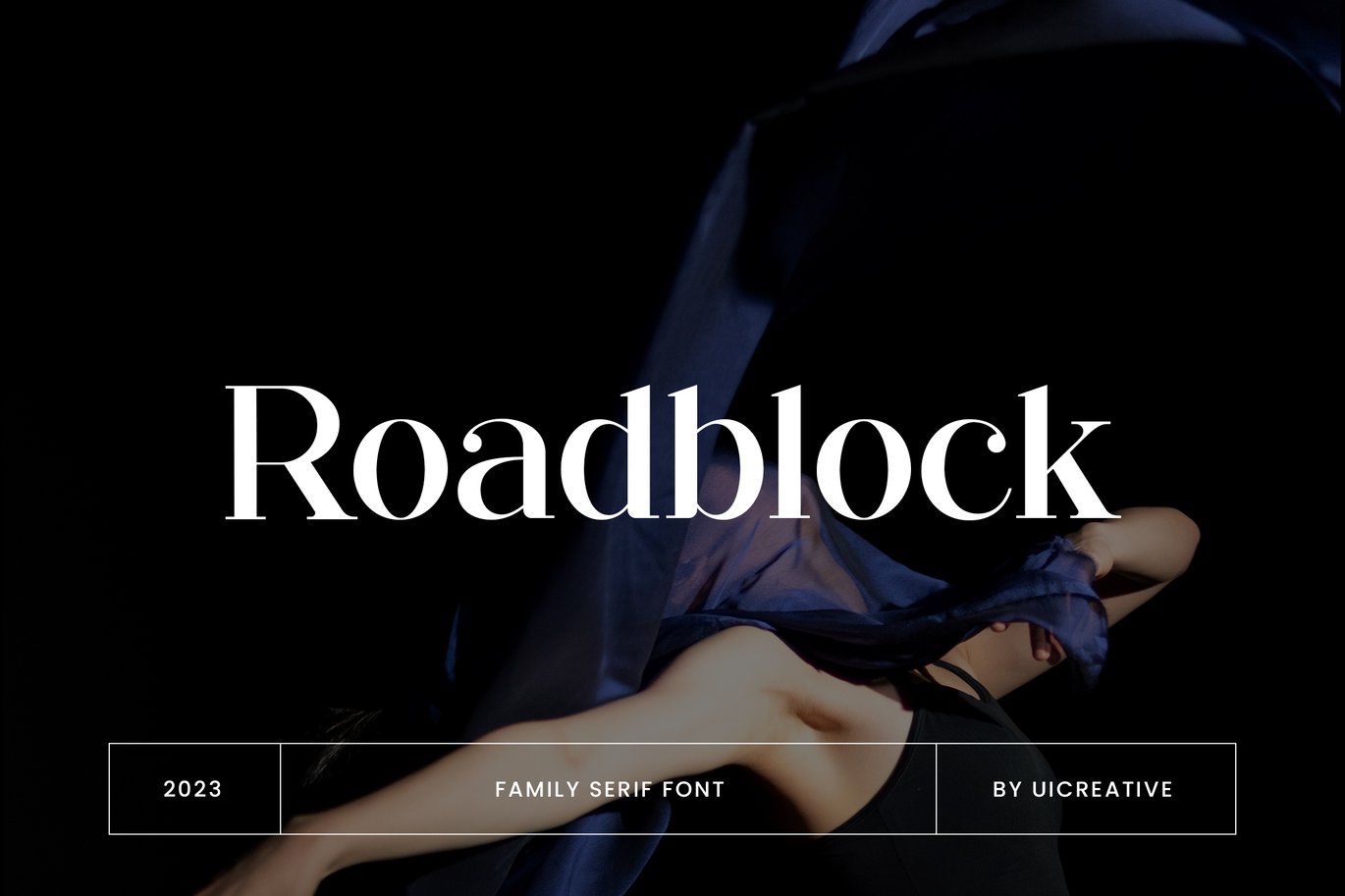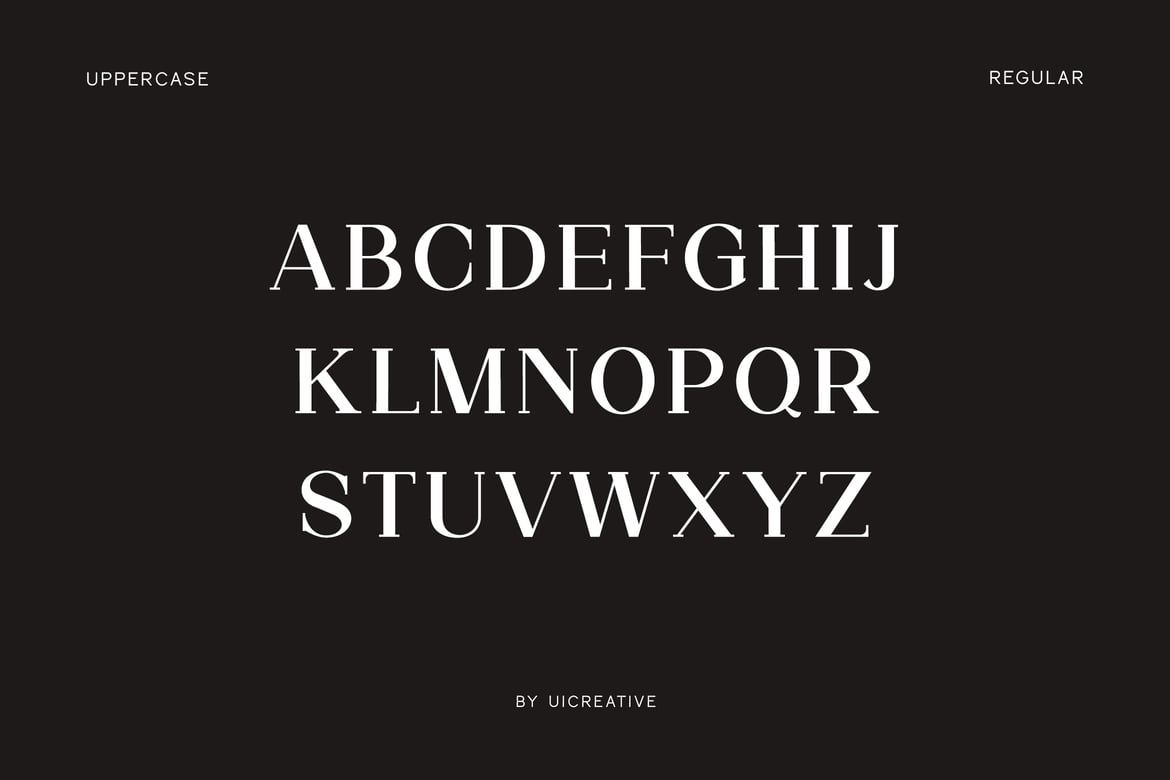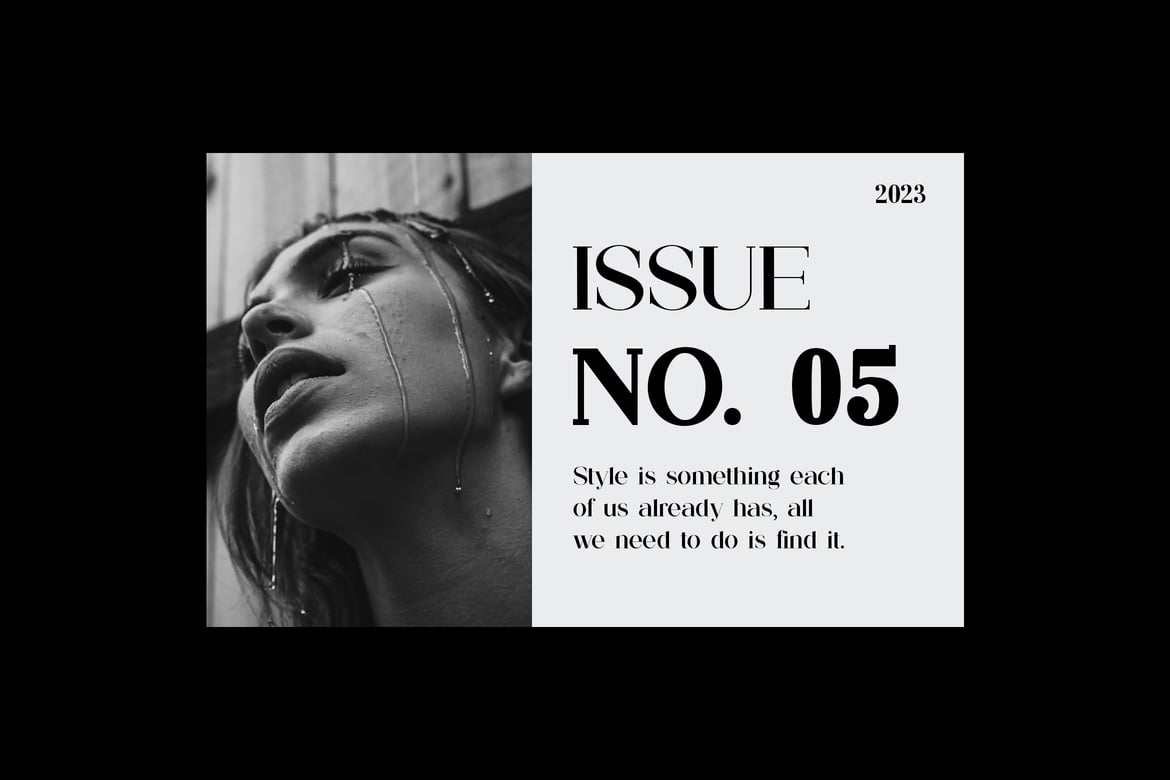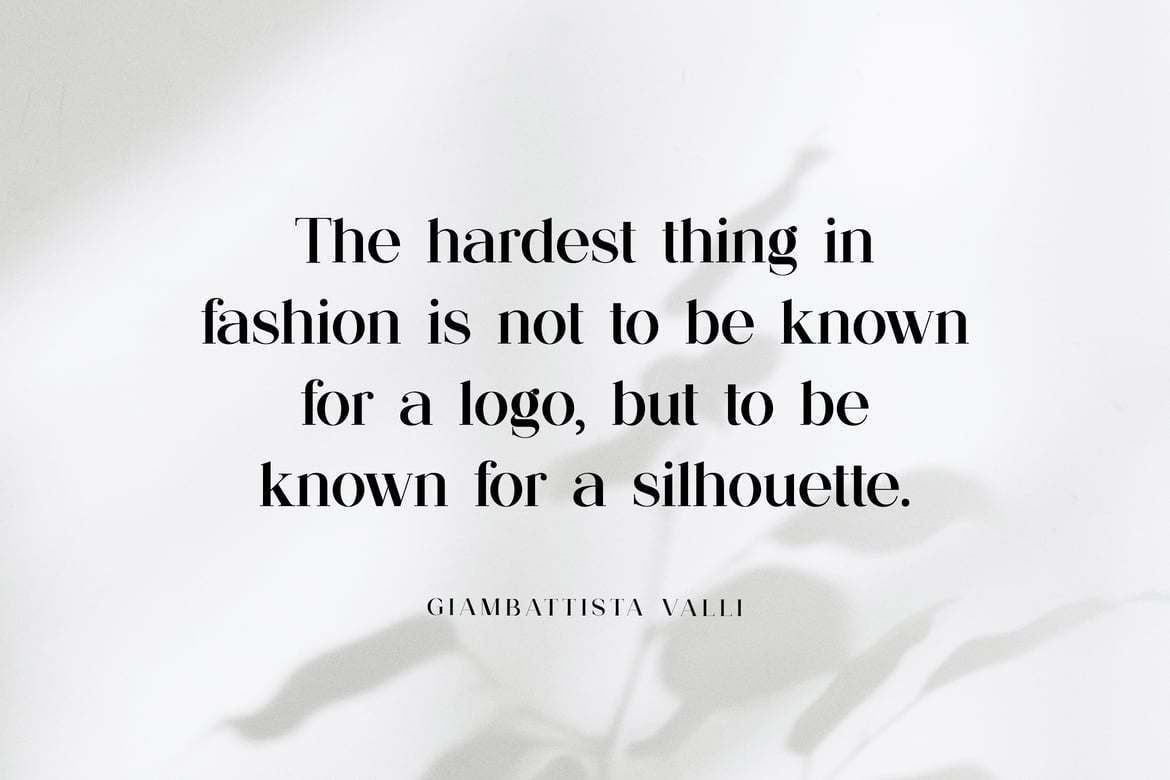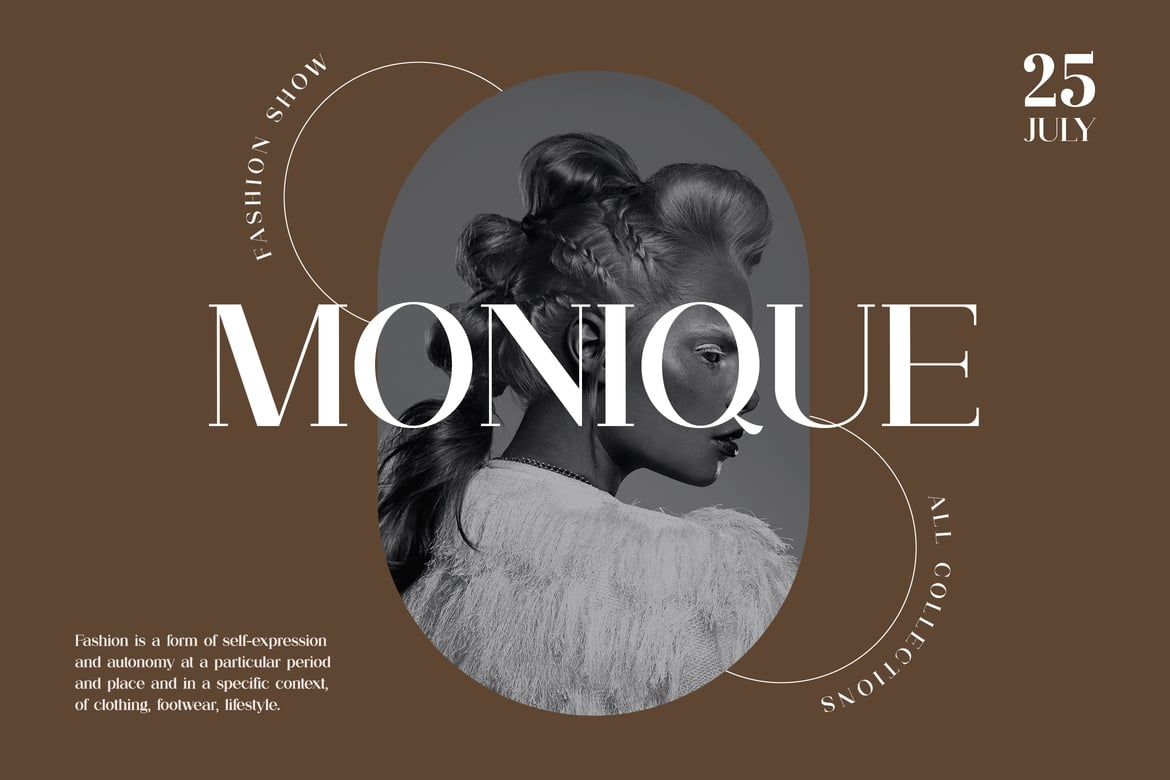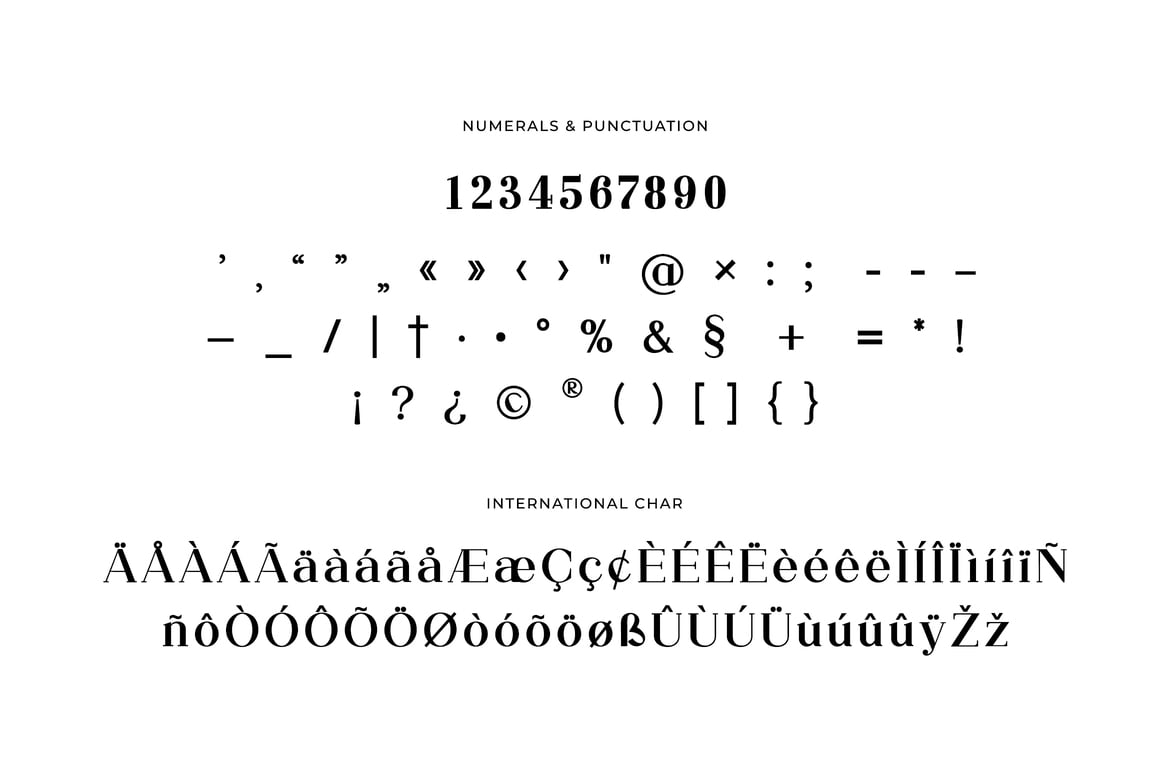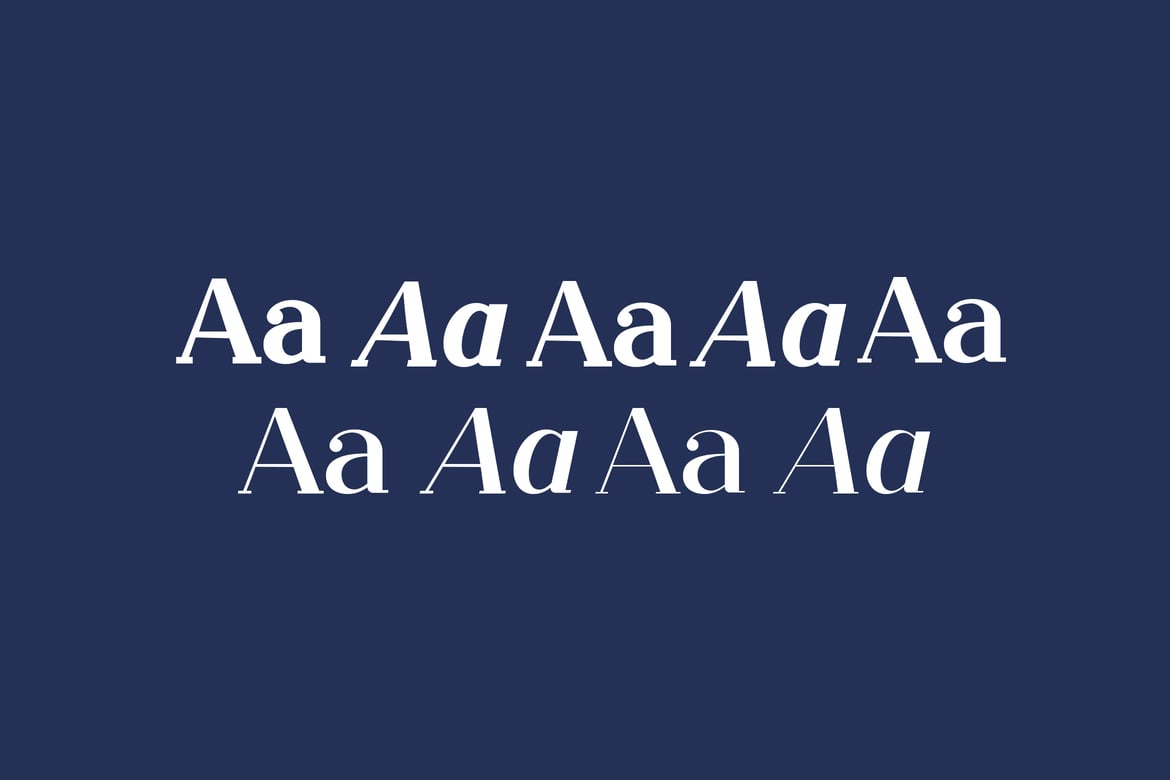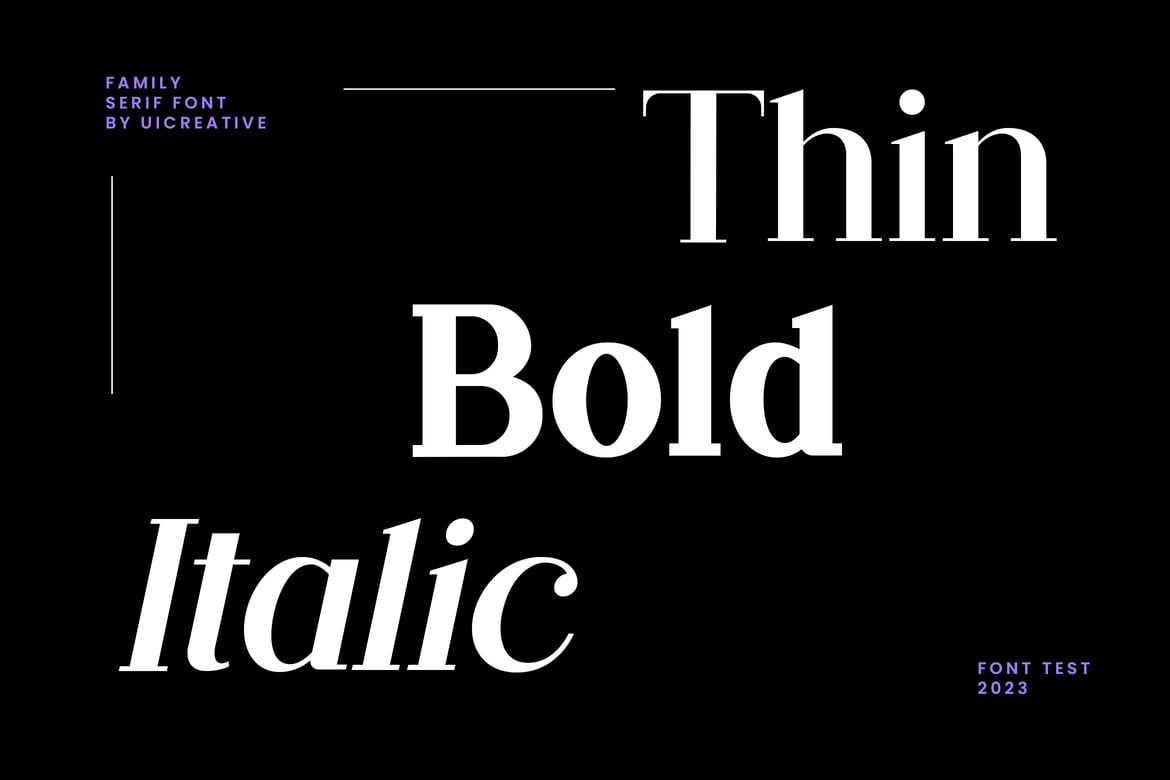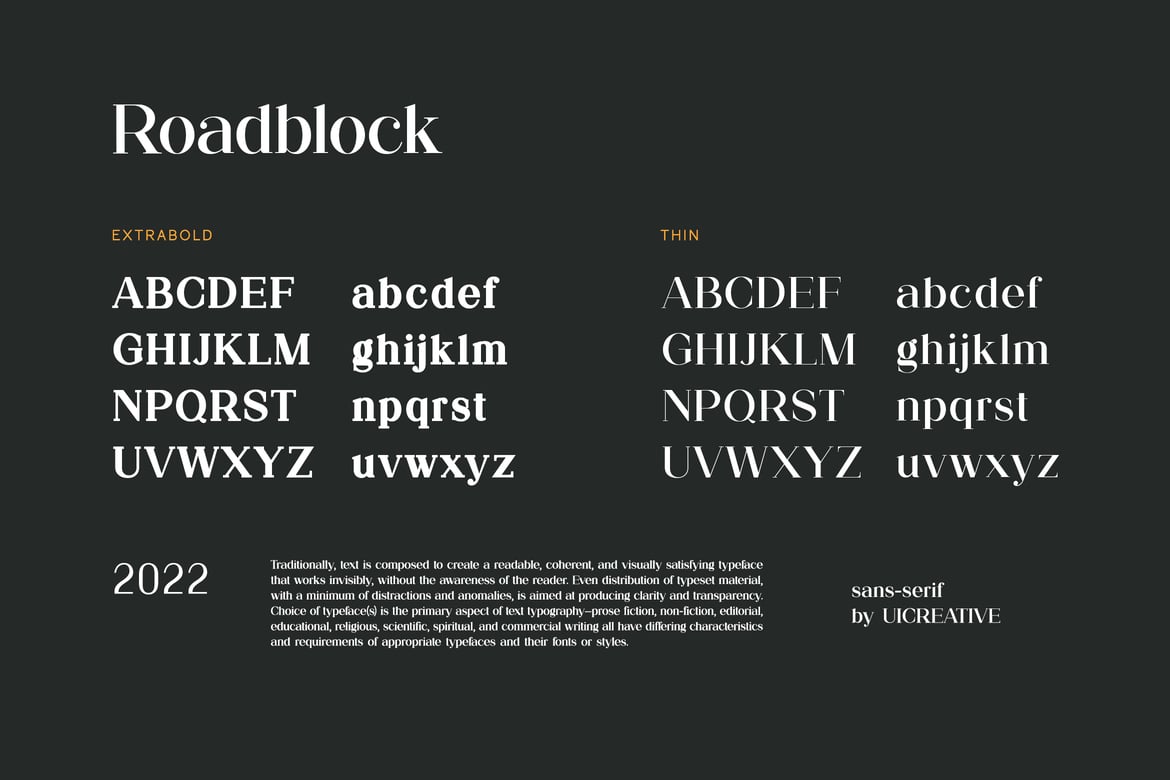
Roadblock Family Serif Font
Introducing our new product the name is Roadblock Family Serif Font. Roadblock Family Serif Font that feels beautiful classy, elegant, and modern. This font is perfectly suited for a wide variety of projects, such as signature, stationery, logo, wedding, typography quotes, magazine or book covers, website headers, clothing, branding, packaging design, and more. Also, fashion-related branding or editorial design displays both masculine and feminine qualities.